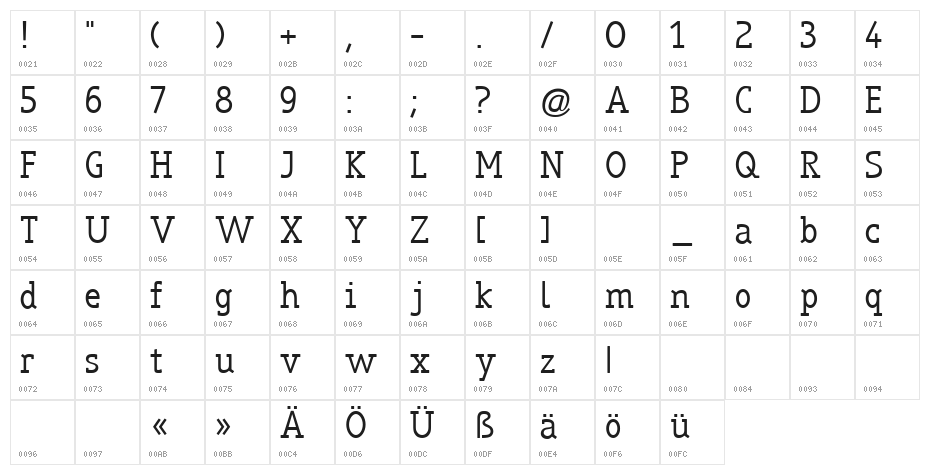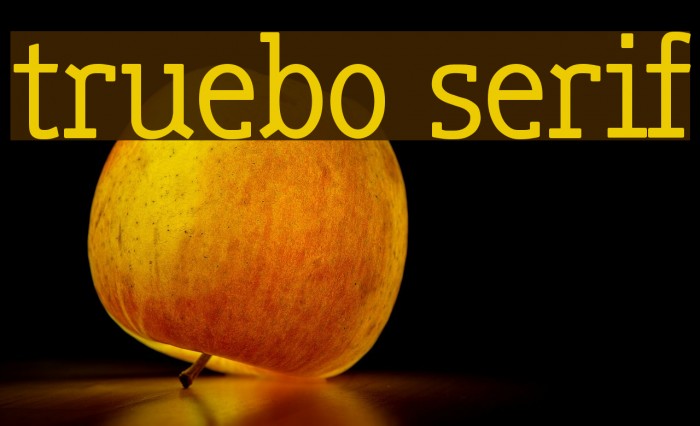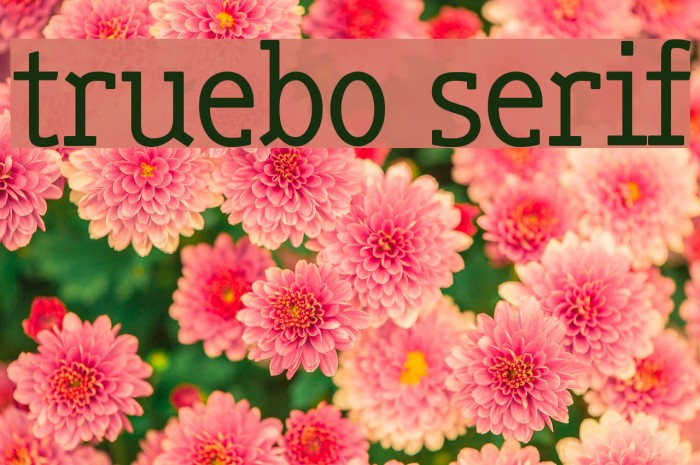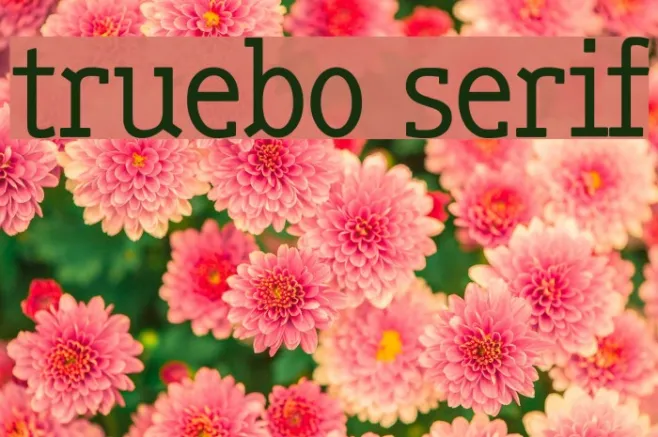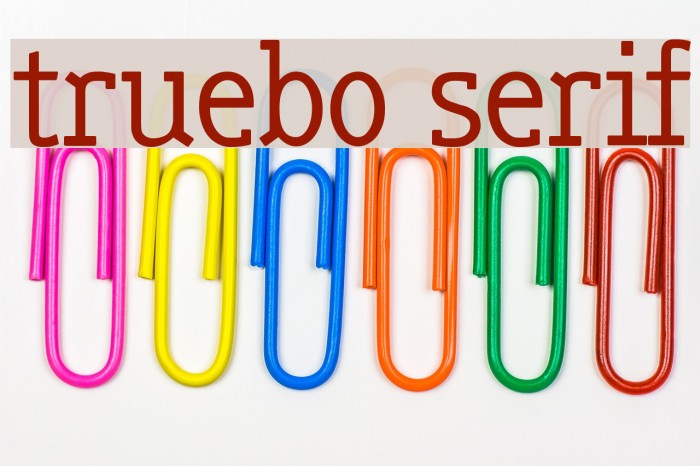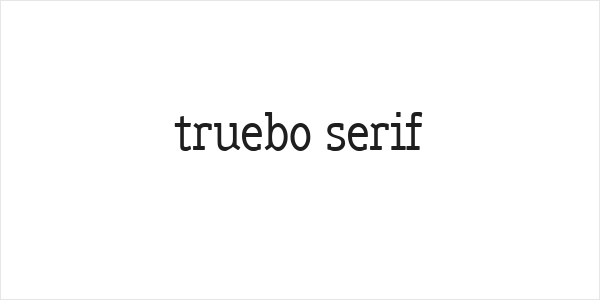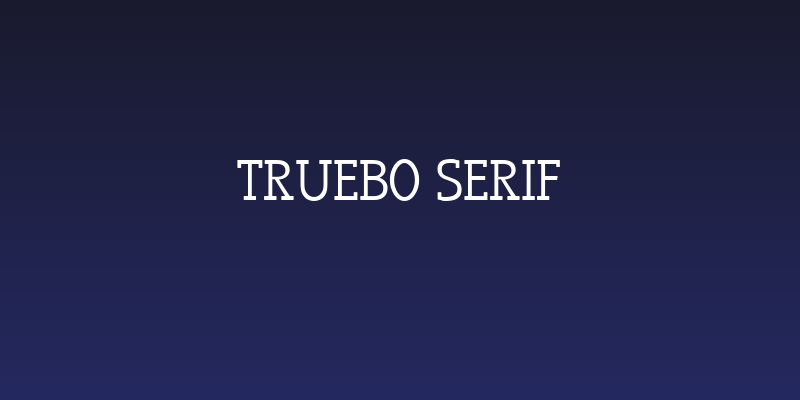
truebo serif Font
truebo serif Description
This serif font features a classic and elegant design, characterized by its distinct serifs and balanced proportions. The uppercase letters exhibit a strong presence with slightly elongated verticals, while the lowercase letters maintain a harmonious flow with rounded forms. The numerals are clear and legible, making them suitable for various applications. The special characters are well-integrated, ensuring consistency across the typeface. Overall, this font combines traditional serif elements with a modern touch, making it versatile for both digital and print media.
| Proposed Projects | Ideal for editorial design, book covers, formal invitations, and branding projects that require a touch of sophistication. |